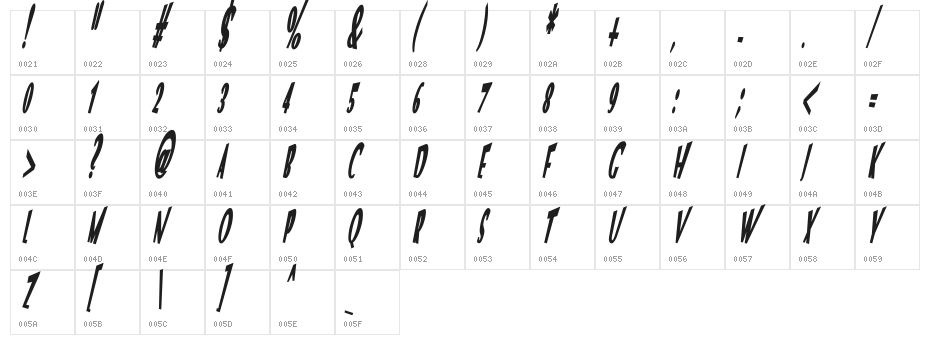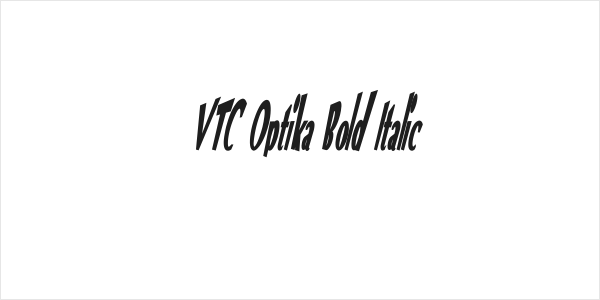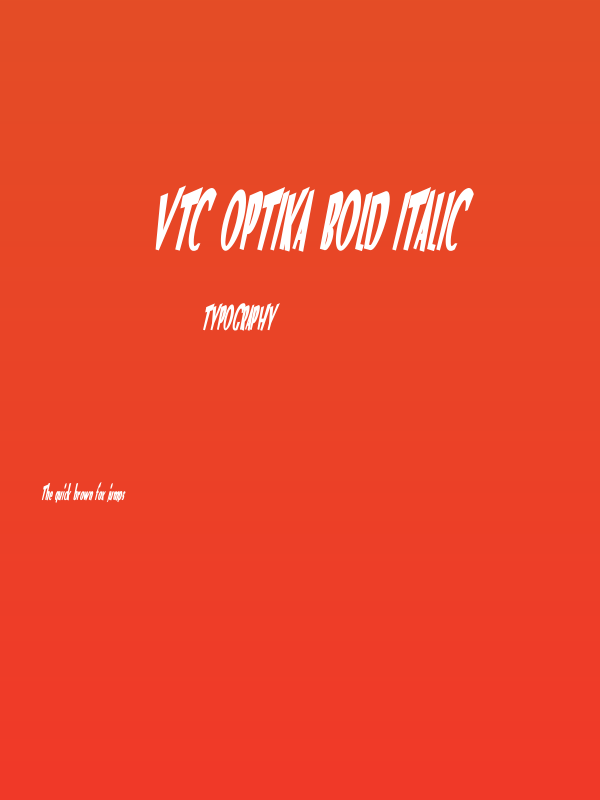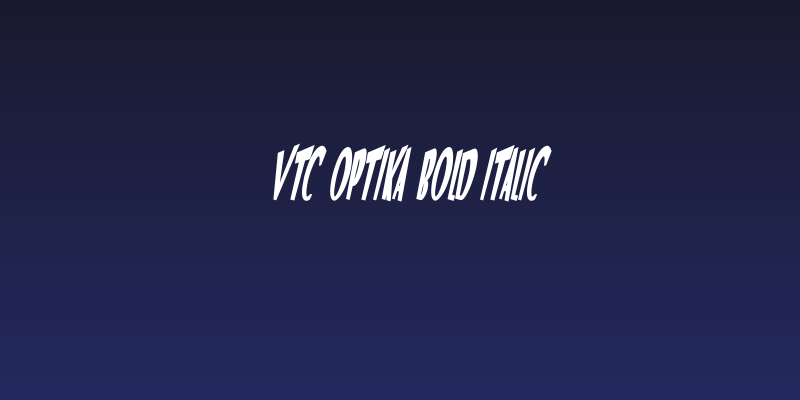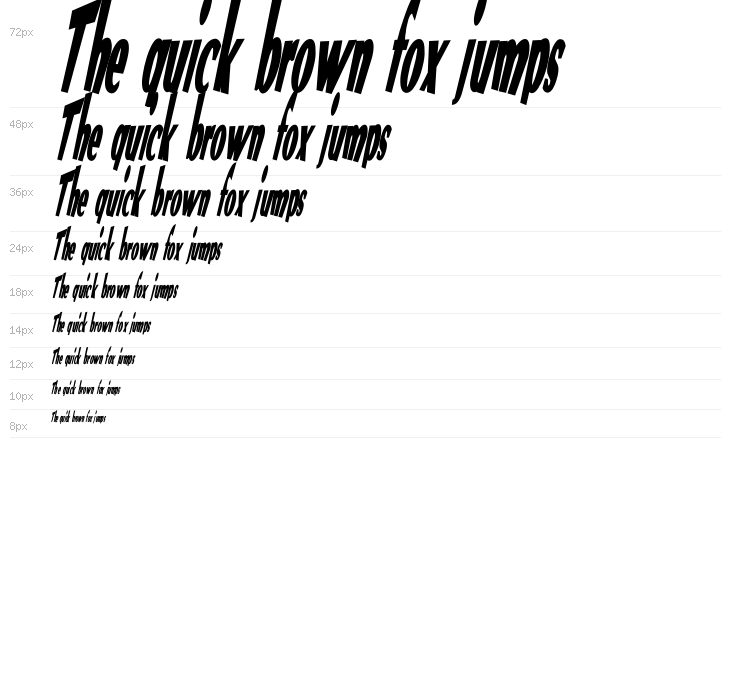
VTC Optika Bold Italic Font
VTC Optika Bold Italic Description
This font exhibits a bold and italicized style with a strong, dynamic presence. The characters are sharply angled, giving a sense of movement and urgency. The uppercase and lowercase letters maintain a consistent slant, enhancing the italic effect. The numerals and special characters follow the same design principles, ensuring uniformity across all glyphs. The strokes are thick and consistent, contributing to the bold appearance. This font is particularly eye-catching and is designed to stand out in any context.